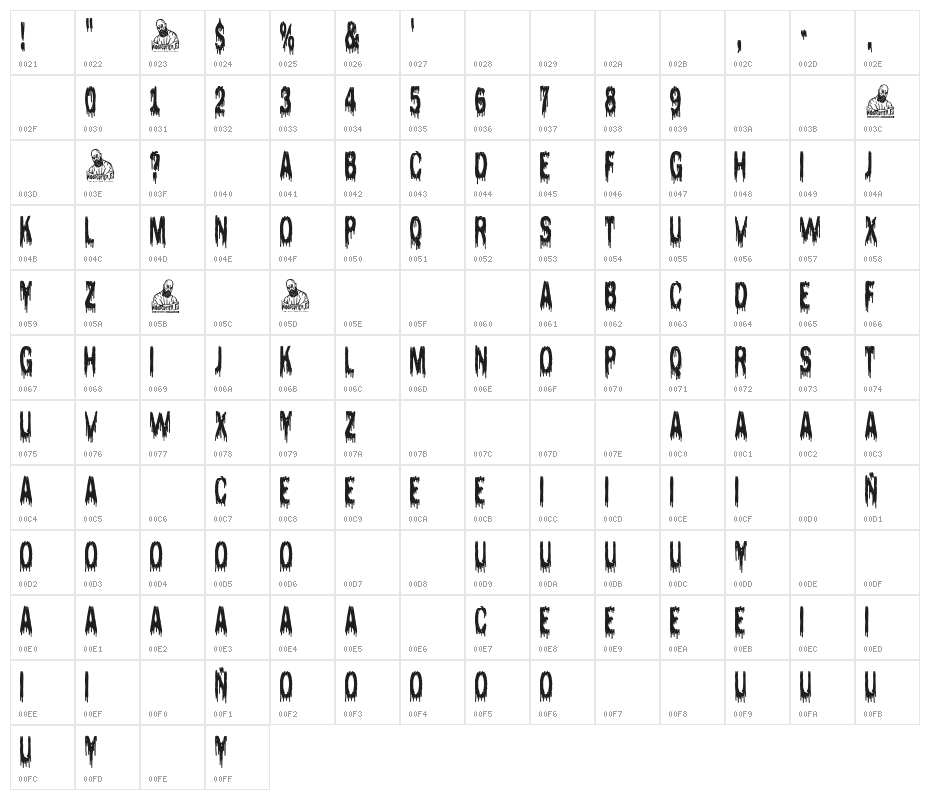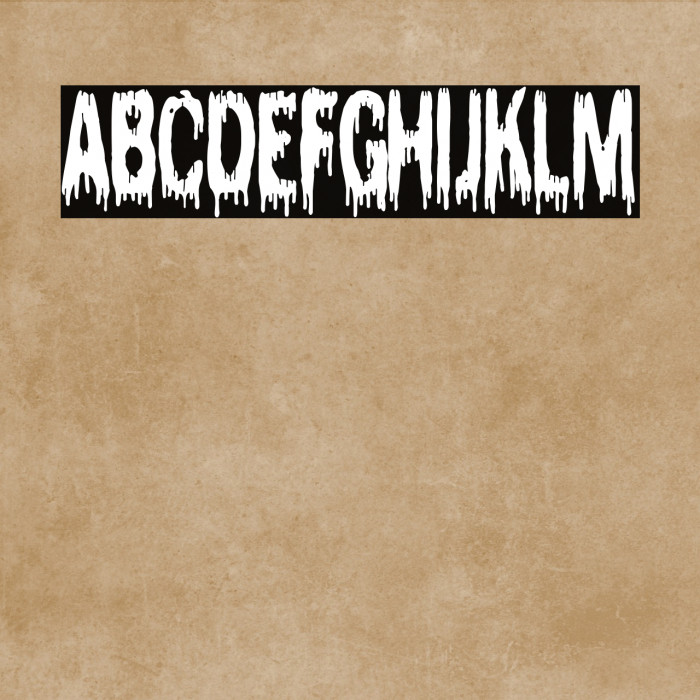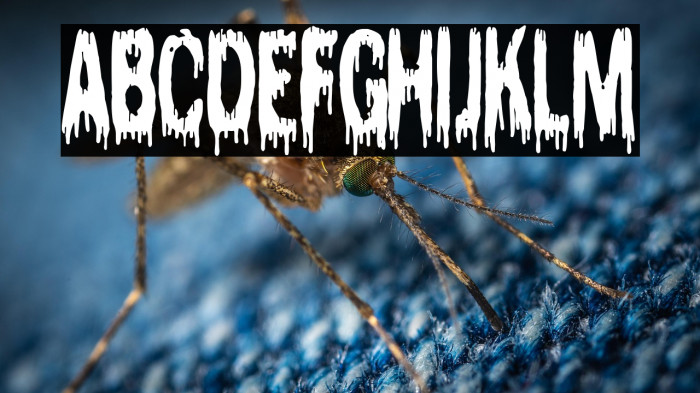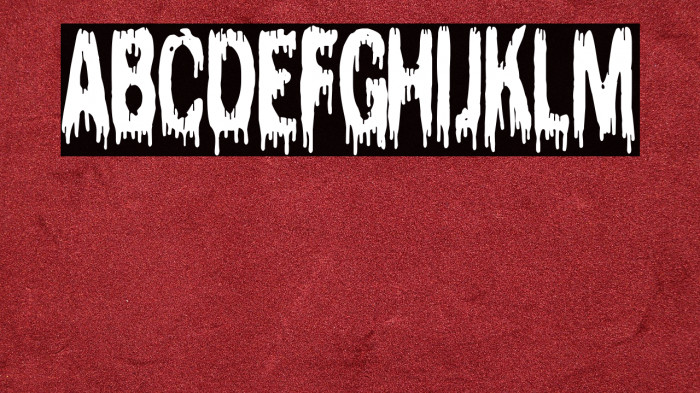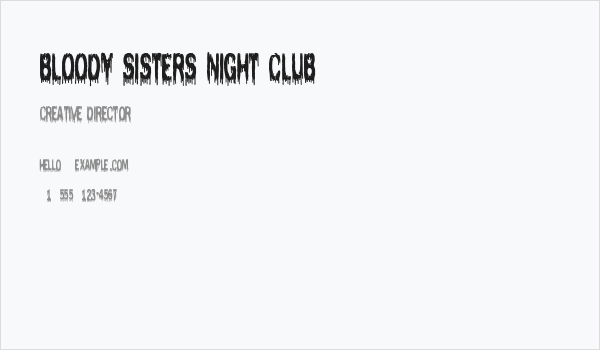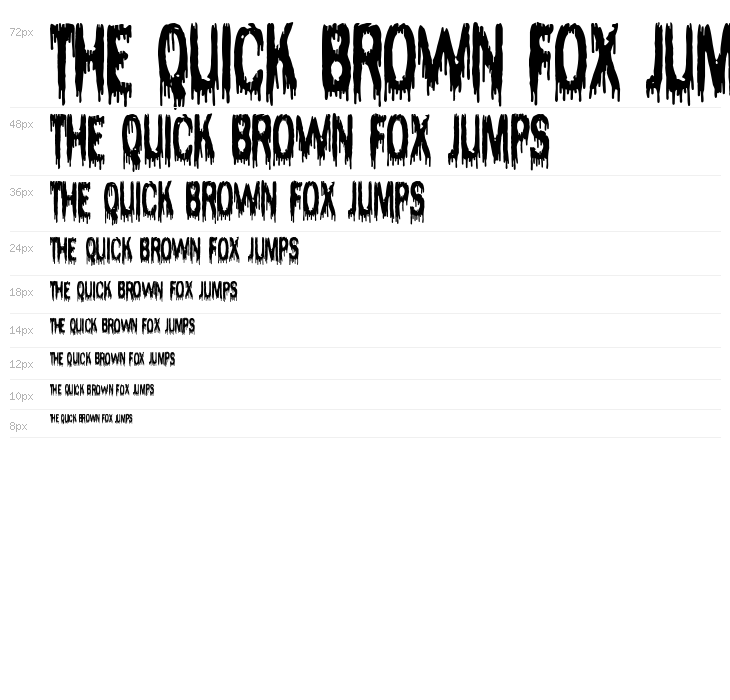
Bloody Sisters Night Club Font
Bloody Sisters Night Club Description
A bold, uppercase decorative font with a dripping, liquid effect reminiscent of blood or slime, creating a horror or Halloween-themed appearance. The characters are tall and narrow with irregular edges and extended drips at the bottom.
| Overall Style | Decorative, Horror, Grunge |
| Use Case | Headlines, Posters, Event Titles, Themed Logos |
| Proposed Projects | Halloween posters, horror movie titles, haunted house flyers, spooky party invitations, themed event branding. |